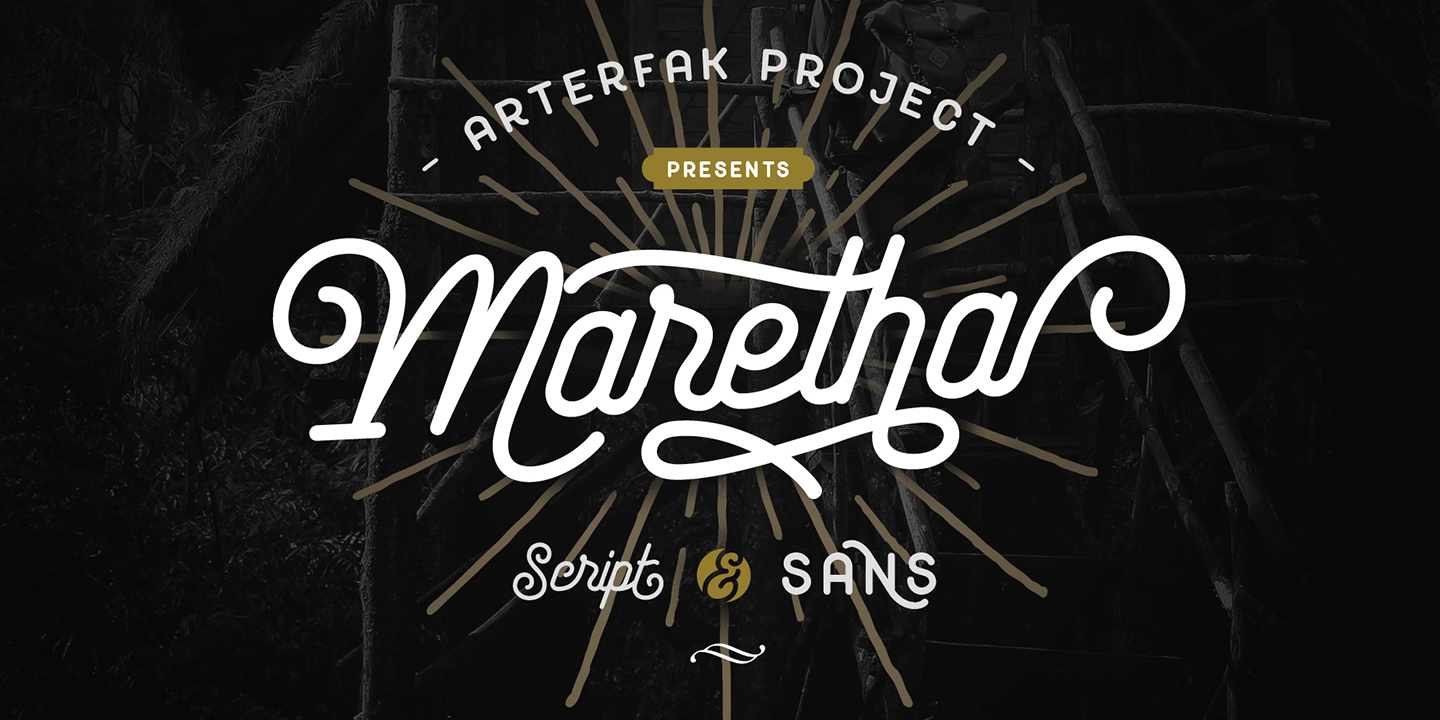
The Maretha Font is a beautifully elegant and versatile script typeface, characterized by its flowing, graceful lines and a delicate, handcrafted feel that evokes classic penmanship and sophisticated artistry. Imagine its exquisite characters gracing bespoke wedding invitations, adding a luxurious touch to high-end beauty product branding, or creating captivating titles for romantic novels and upscale lifestyle blogs. Its natural connections, subtle flourishes, and elegant ligatures also make it an excellent choice for custom stationery, heartfelt greeting cards, unique branding for artisanal goods, and social media graphics that aim for a refined and personal aesthetic. Whether you're aiming for a classic, romantic look or a contemporary design infused with heartfelt charm, Maretha Font delivers with its undeniable beauty, ensuring your visuals are both inviting and truly memorable.
What makes Maretha Font so exciting is its remarkable ability to infuse designs with an immediate sense of intimacy, luxury, and handcrafted artistry. In a digital world often dominated by rigid or overly utilitarian typefaces, this font offers a refreshing alternative that feels authentic and deeply personal. It evokes a feeling of bespoke craftsmanship and elegant femininity, making your designs feel more approachable and memorable. It’s more than just a typeface; it’s a design element that can instantly convey emotion and sophistication, allowing designers to create work that feels more artisanal and less mass-produced. Its versatility in maintaining legibility while exuding grace makes it a highly sought-after tool for designers aiming for a distinct and impactful presence.
The Maretha Font family is typically structured to offer a thoughtful range of variations to enhance its usability and artistic potential. While the primary Maretha Regular script provides that distinctive handwritten look, you might find companion styles such as a slightly bolder Maretha Bold for emphasis, or various Maretha Swashes and ligatures that allow for even greater customization and natural flow between letters. Script fonts of this caliber often come with extensive OpenType features, including stylistic alternates, contextual alternates, and multiple ending forms for each letter, ensuring truly organic and beautiful connections. These diverse family members provide designers with the flexibility to create cohesive and sophisticated layouts that maintain the font's unique charm while offering practical solutions for various design needs.